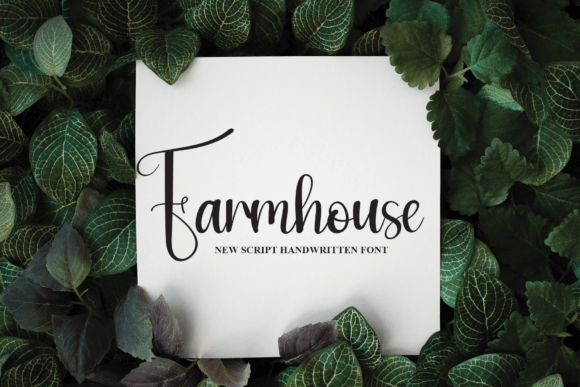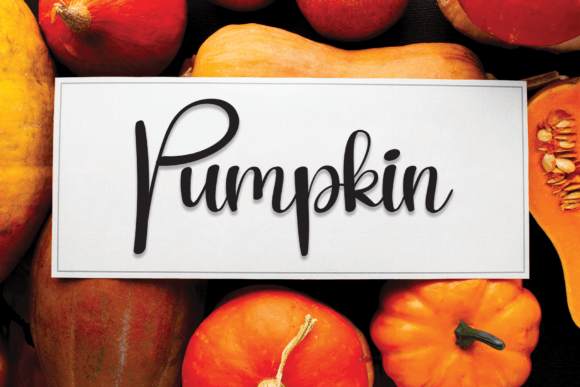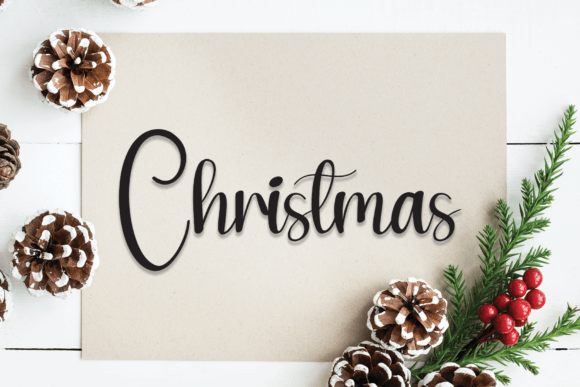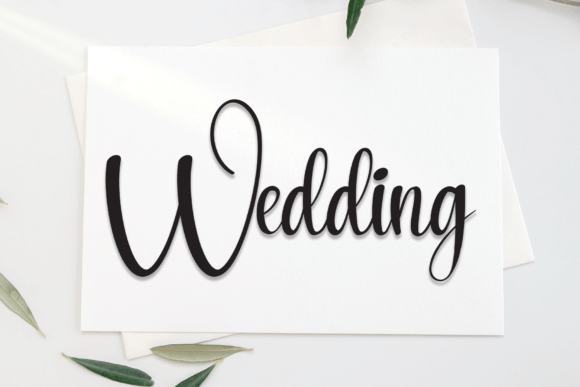
Introduction to Brilliant Student Font Font
Fonts play a crucial role in design, and the Brilliant Student Font font is a typeface that brings both character and versatility to any project. Whether you’re working on a branding project, a website, or a print design, the Brilliant Student Font font offers a unique style that can elevate your work.
| π€ Author | william jhordy |
Brilliant Student is a simple and friendly handwritten font.
Whether youβre using it for crafts, digital design, presentations, or creating greeting cards, this font has the potential to become your go-to font, whatever the occasion .
Key Features of Brilliant Student Font Font
Why Choose Brilliant Student Font Font?
The Brilliant Student Font font is more than just a typeface β it’s a design tool that helps you communicate your message with style and clarity. Its unique character set and versatile design make it suitable for a wide range of applications, from elegant invitations to bold headlines.
With its carefully crafted letterforms and balanced proportions, the Brilliant Student Font font ensures readability and visual appeal across all mediums.
What makes Brilliant Student Font font special?
The Brilliant Student Font font stands out with its unique design, exceptional readability, and versatility across various design applications.